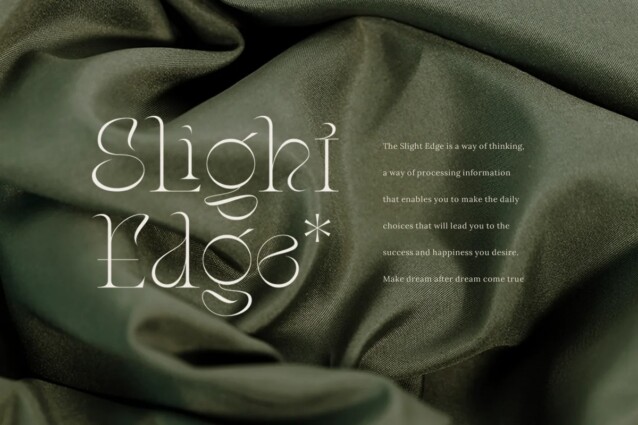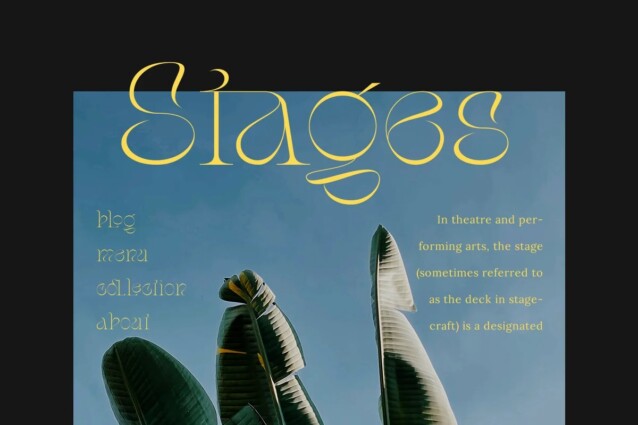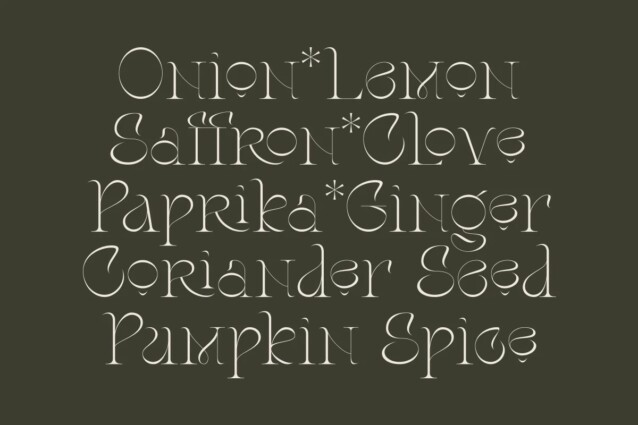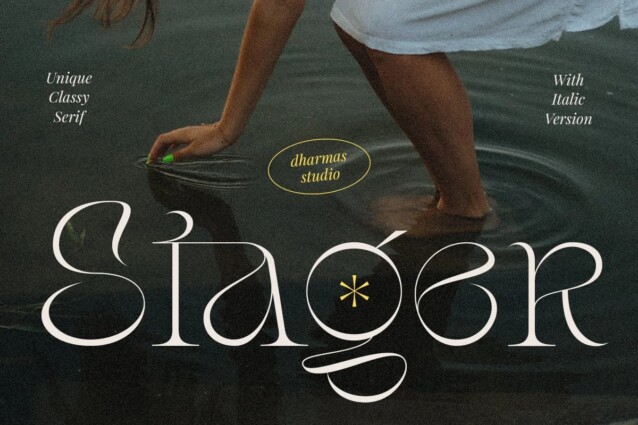
Stager Font
Stager Font is a luxury display font created by Dharmas Studio with serif style. Thin letter anatomy collaborates with unique alternates and beautiful ligature so making any project seem chic, minimalist, luxurious, unique, artistic, art deco vibes
Stager – Come with an italic version, so perfectly suitable for creating elegant, simple, retro designs such as branding, poster design, books, fashion, social media designs, logos, etc.